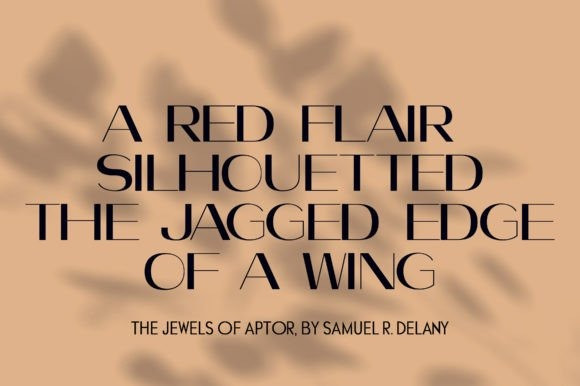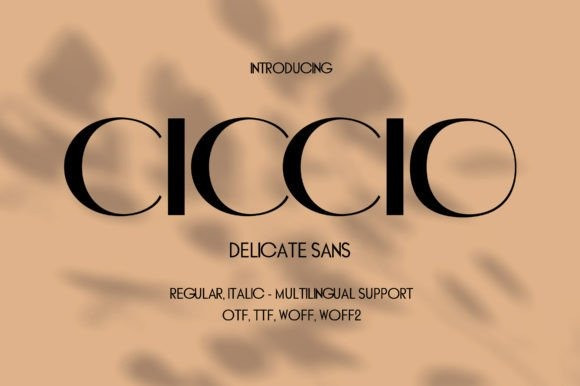
Ciccio Font
Ciccio Font, a stunning modern sans serif font that exudes elegance, chicness, and minimalism. With over 602 beautifully crafted glyphs, this font is perfect for any design project that requires a touch of sophistication.
Ciccio’s clean and sleek lines create a timeless look that is both modern and refined. Its versatility allows it to be used in a variety of design applications, from branding and marketing materials to editorial layouts and web designs.
With its comprehensive multilingual support, Ciccio can be used to communicate effectively in a wide range of languages. Its international character set includes support for languages such as Spanish, French, German, Italian, and more.
Crafted with meticulous attention to detail, Ciccio is a font that will elevate any project it’s used in. Whether you’re designing a minimalist website or creating a high-end fashion brand, Ciccio will make a statement that is sure to impress.
In summary, Ciccio is an exceptional modern sans serif font that offers stunning elegance, chicness, and minimalism. With its extensive glyph set and multilingual support, it is a must-have for any designer looking to create sophisticated, high-quality designs.